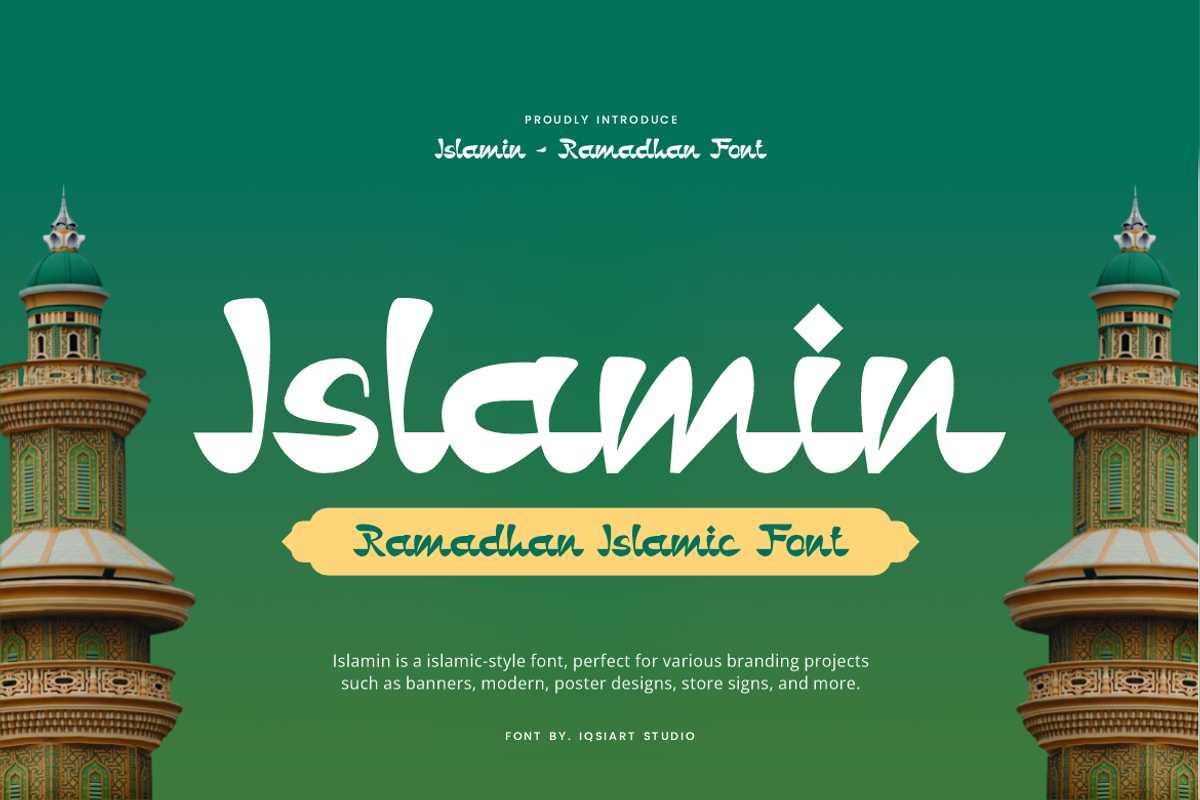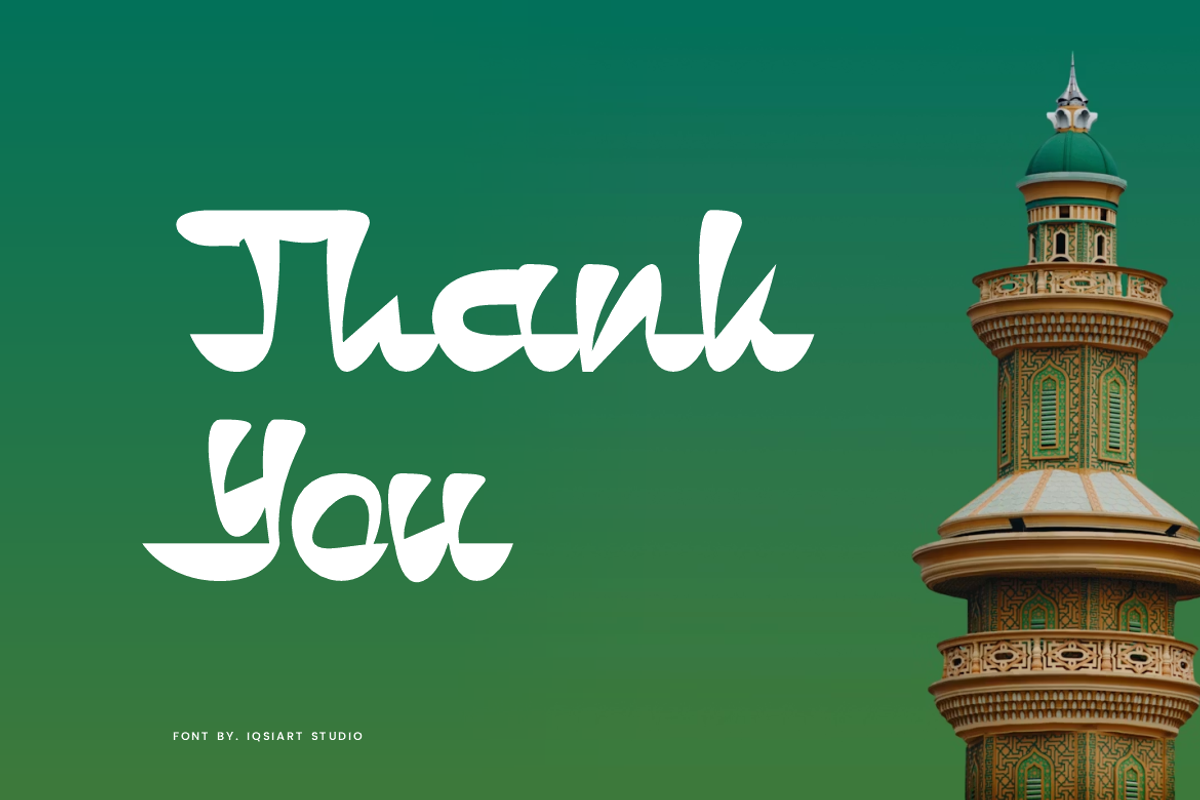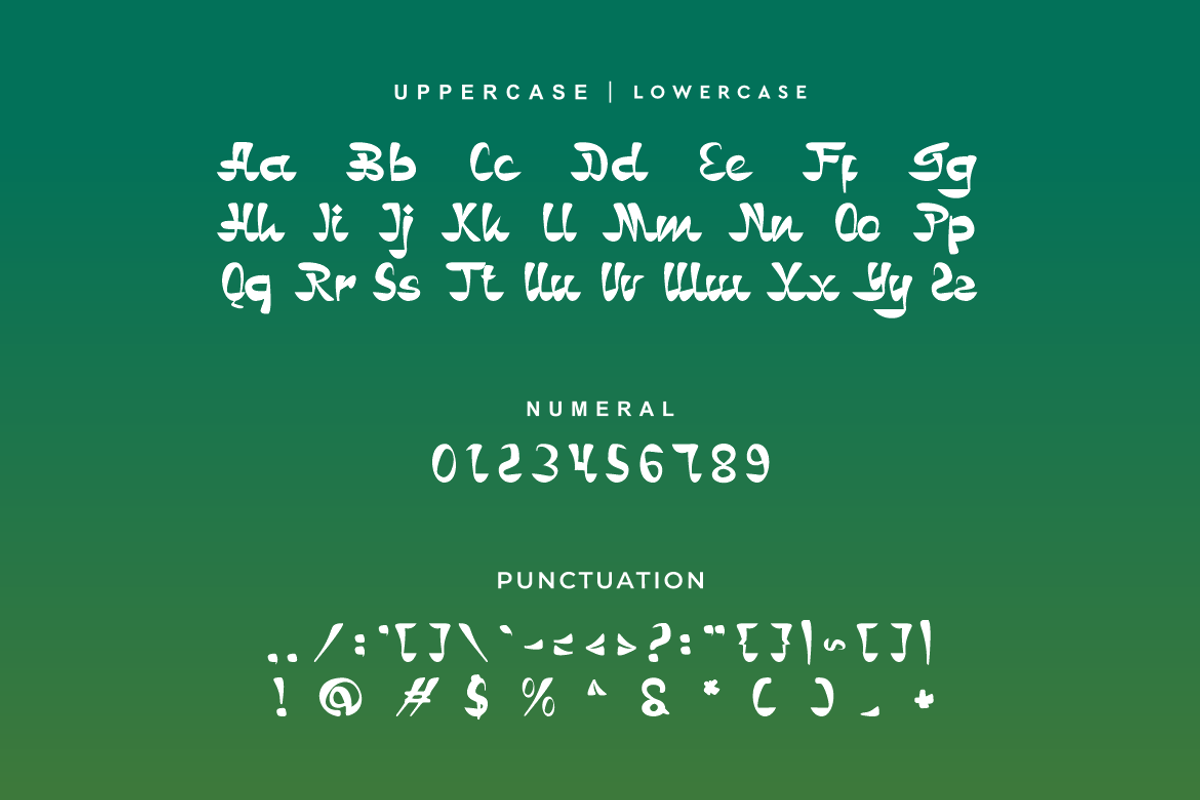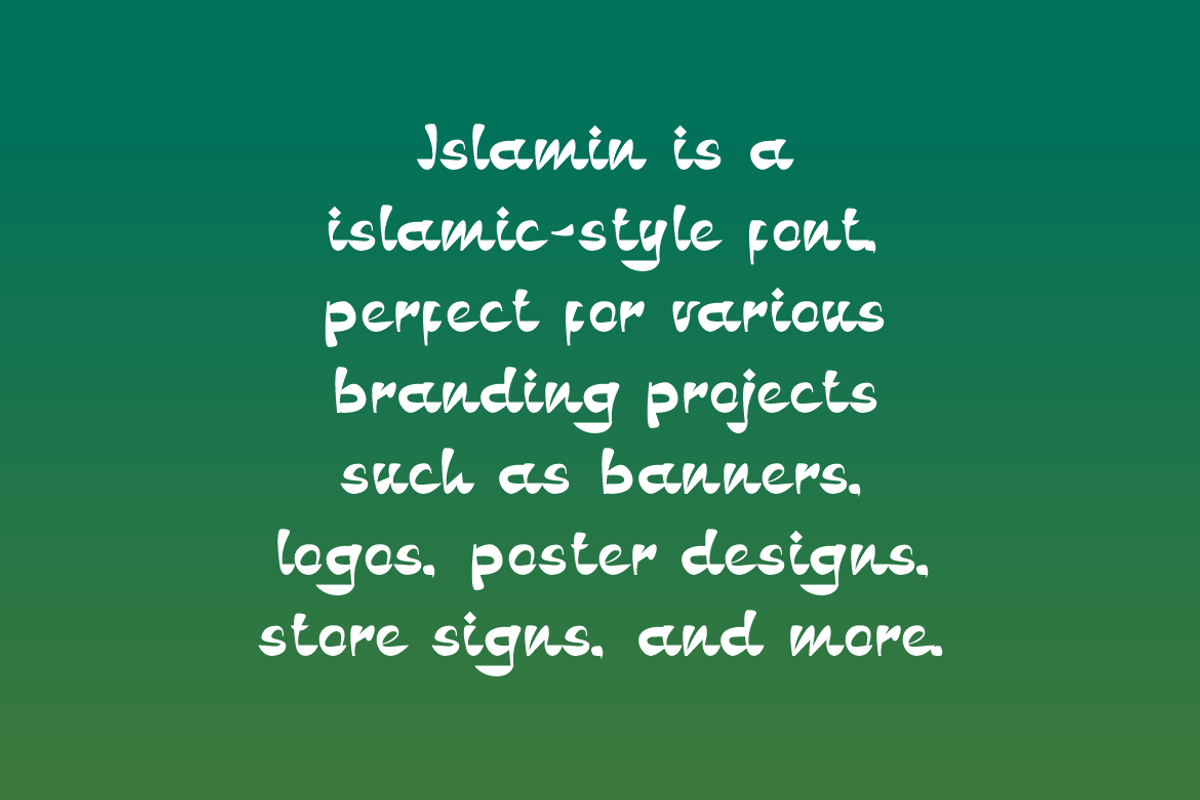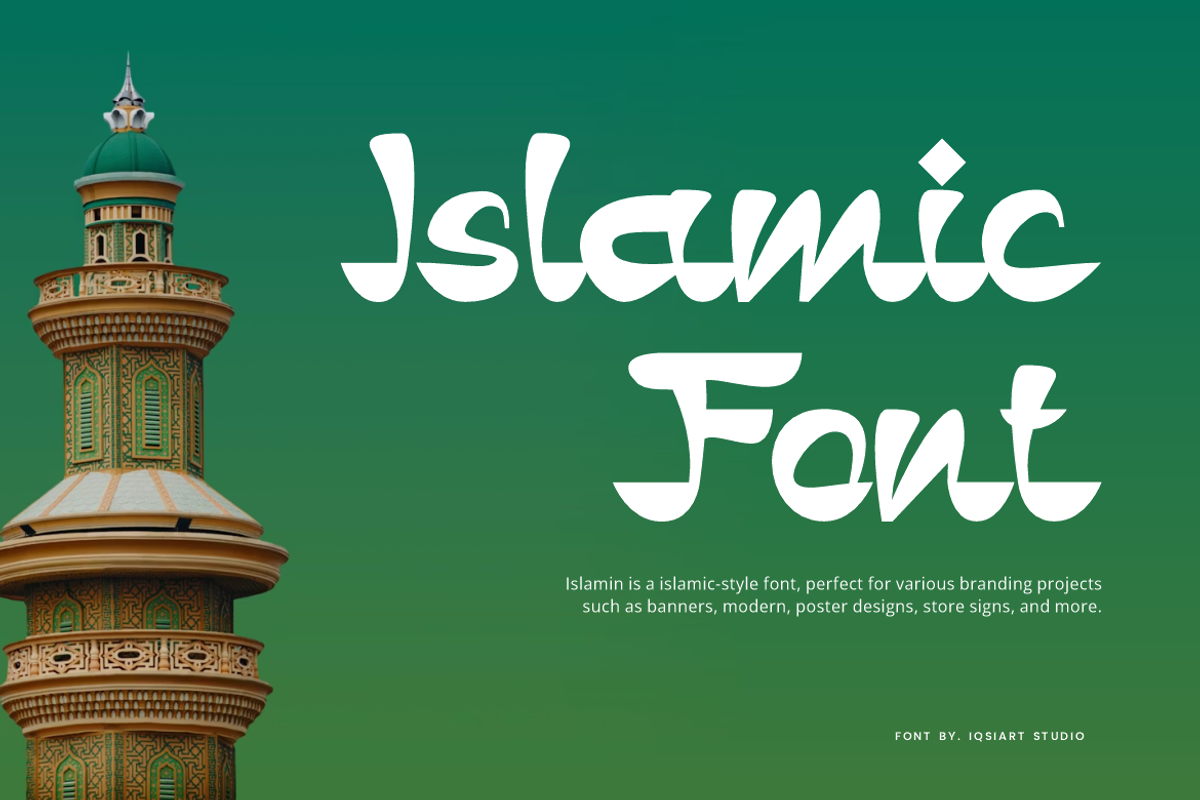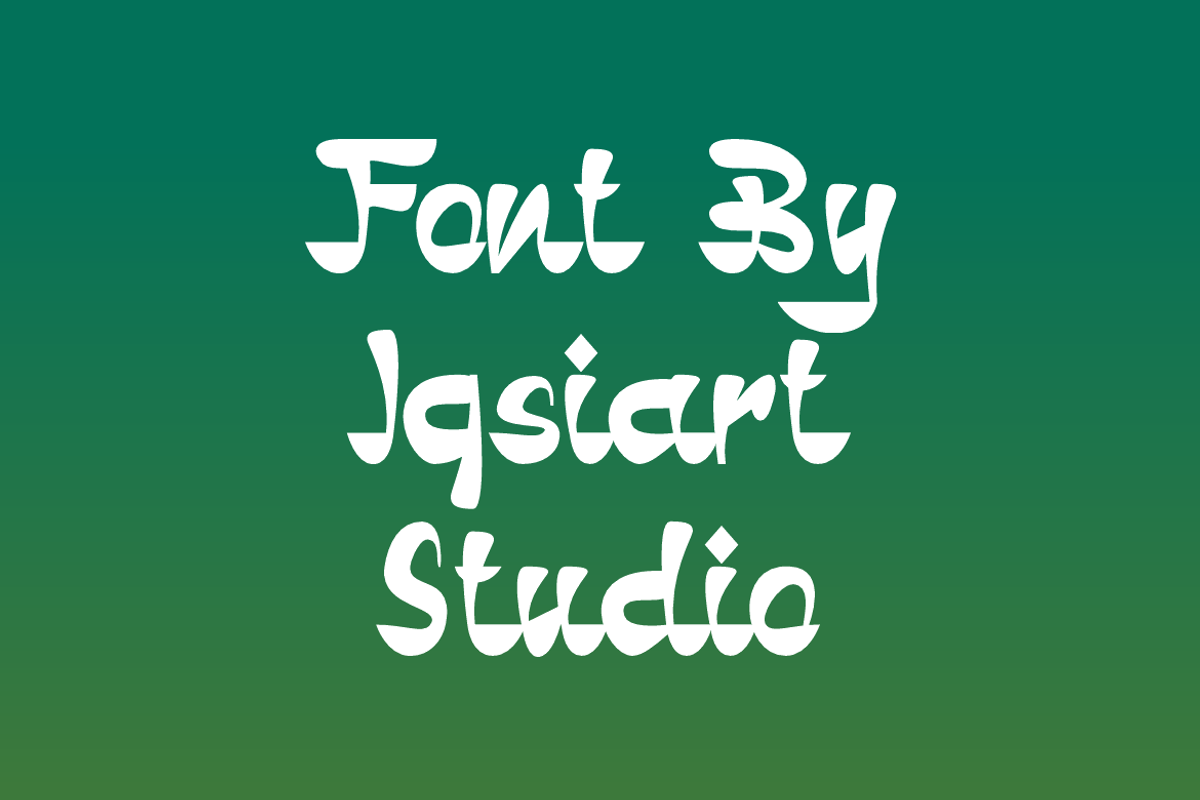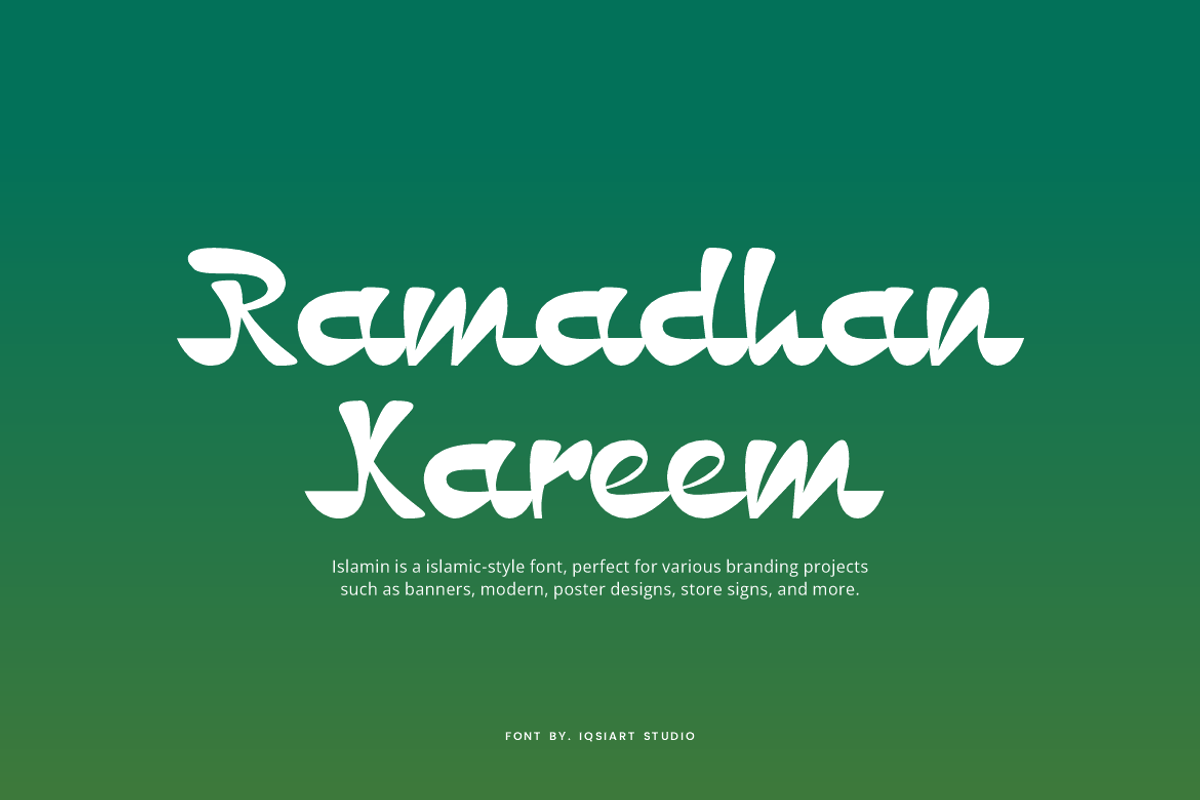
Islamin - Ramadan Font
Islamin Font is a islamic and authentic display typeface that suits a variety of design needs. We offer a wide range of themes and font styles — visit our profile to explore more and find the perfect style for your project.